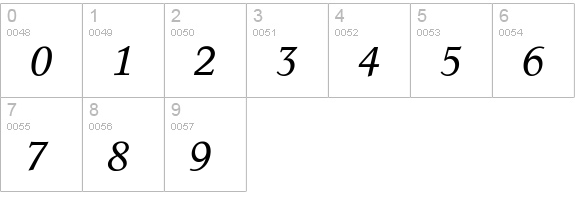
Concorde (R) Italic Font Details
Concorde (R) Italic is a distinctive, italic variant in the Concorde typeface family \xE2\x80\x94 well suited to design and typography projects.
Concorde Italic font is a sleek and sophisticated typeface that exudes elegance and modernity. Its italicized design adds a touch of flair and style to any text or design project. With its clean lines and balanced spacing, Concorde Italic is perfect for creating eye-catching headlines, invitations, or branding materials. The best part? Concorde Italic font is available for free download at FontsMarket.com. Whether you're a designer looking to add a touch of sophistication to your projects or a business owner in need of a polished font for your marketing materials, Concorde Italic is the perfect choice. Download it today and elevate your designs with this stunning typeface.